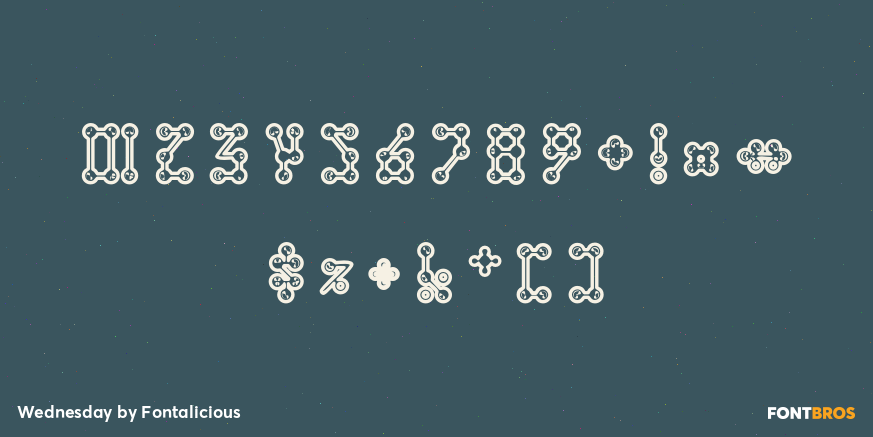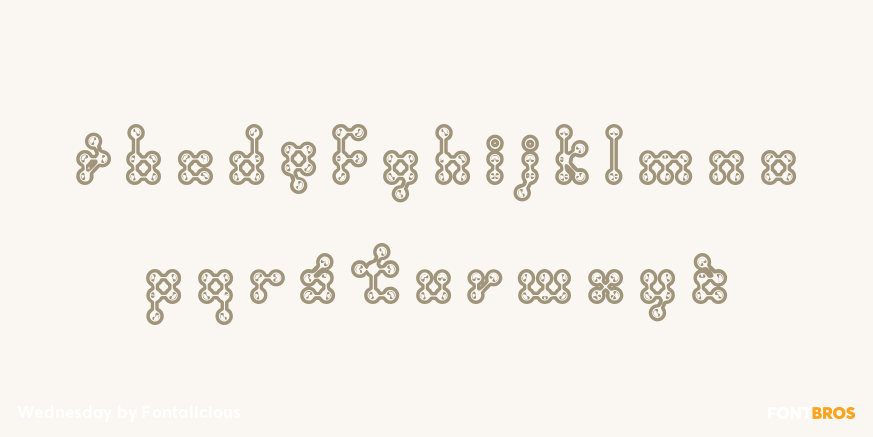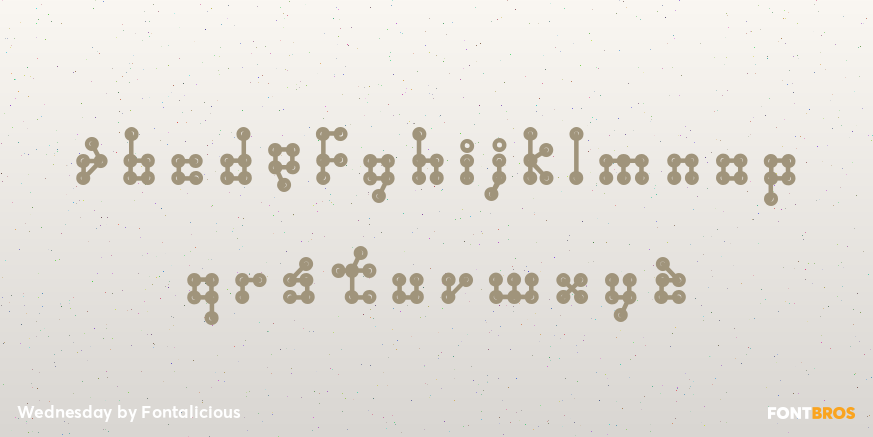
Wednesday
Font Family by Fontalicious
Lately I have been it a british mod-art mode. I want a Weltron 2001 8-track player. I want an egg chair with matching ottoman. With speakers inside of it and a reading light. I want artwork from Peter Max and Roy Lichtenstein. Any kind of plastic furniture will suit me fine. That kind of stuff costs bouko-bucks. Unless people give it to me for free. All I can give to you in return is a hard-to-read font that mocks the era of sleek pop art designers. This is more of an experimental design font. Not a build-your-homepage-around-this-font. Peter Max, if you want to download this font and give me a good deal on one of your Toulouse-Lautrec screenprints, I will be very grateful.